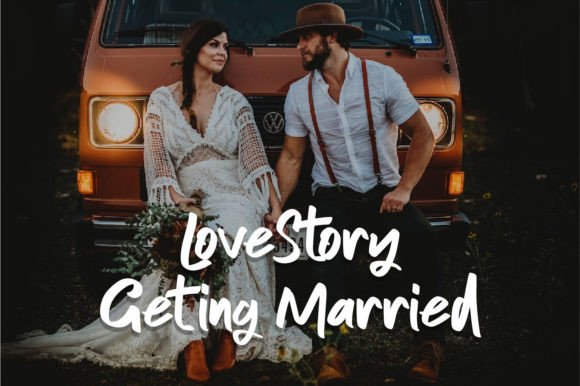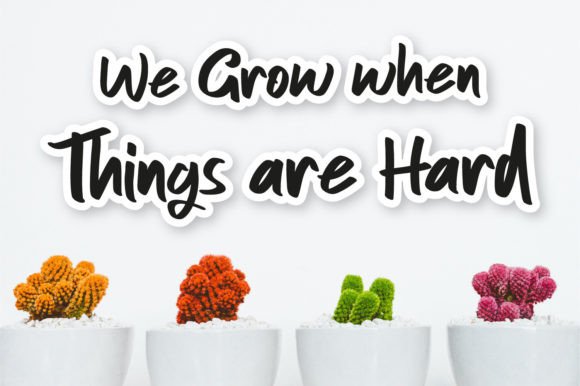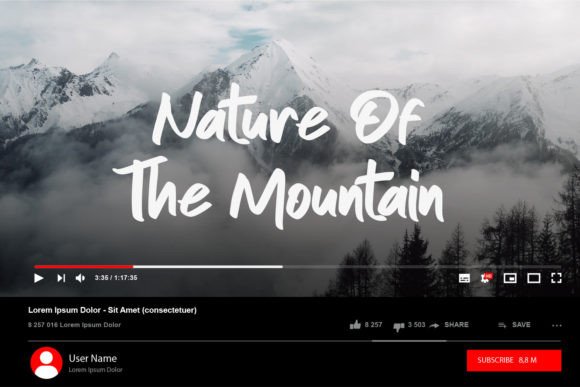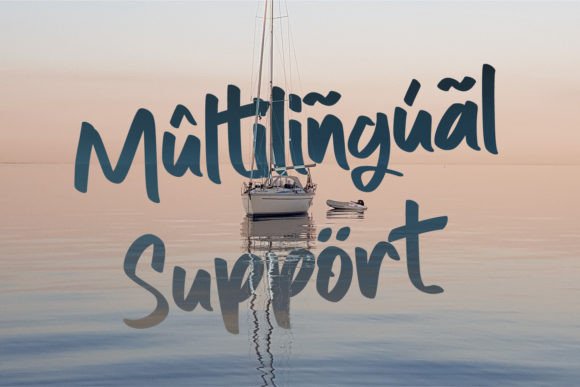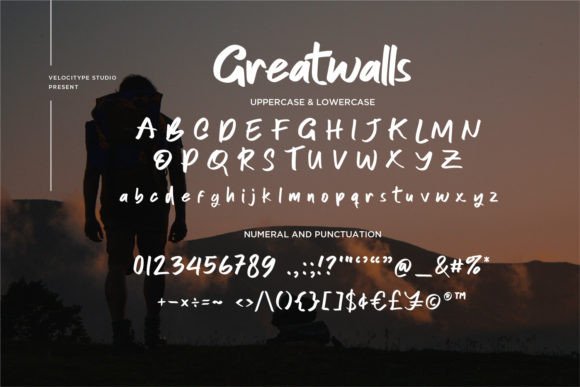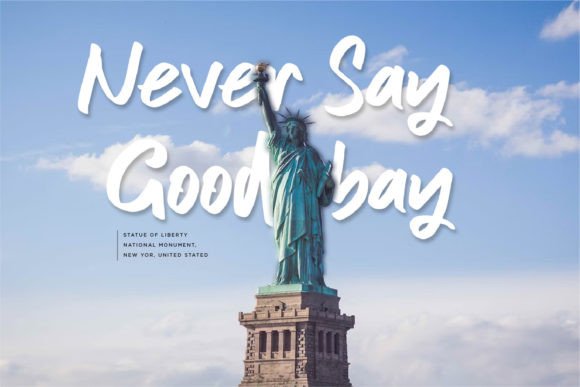
Introducing Greatwalls Font: The Ultimate Modern and Bold Handwritten Script
In the world of typography, a font can make or break a design. For designers and crafters looking to make a statement, Greatwalls Font is the perfect solution. This modern and bold handwritten script font exudes confidence and style, making it ideal for headlines, logos, and social media graphics.
The Power of Greatwalls Font
Greatwalls Font boasts strong and expressive brush strokes that command attention. Its smooth curves add a touch of elegance, making it a versatile font suitable for a wide range of design applications. Whether you’re looking to create a bold logo, a striking headline, or a captivating social media graphic, Greatwalls Font is the perfect choice.
Key Features of Greatwalls Font
- Modern and Bold: Greatwalls Font features a modern and bold design that’s perfect for making a statement.
- Handwritten Script: The font’s handwritten script style adds a touch of personality and elegance to any design.
- Strong and Expressive Brush Strokes: Greatwalls Font’s strong and expressive brush strokes make it perfect for headlines, logos, and social media graphics.
- Smooth Curves: The font’s smooth curves add a touch of sophistication and elegance to any design.
Greatwalls Font is perfect for designers and crafters looking to unleash their creativity. With its bold and captivating design, this font is sure to leave a lasting impression on your audience. Whether you’re working on a branding project, a social media campaign, or a personal crafting project, Greatwalls Font is the perfect choice.
Use Cases for Greatwalls Font
- Headlines: Use Greatwalls Font to create bold and eye-catching headlines that grab attention.
- Logos: Create a lasting impression with a bold and memorable logo designed with Greatwalls Font.
- Social Media Graphics: Use Greatwalls Font to create captivating social media graphics that stand out from the crowd.
- Branding: Establish a strong brand identity with Greatwalls Font’s bold and elegant design.
Why Choose Greatwalls Font?
With so many fonts available, why choose Greatwalls Font? Here are just a few reasons:
- Unique Design: Greatwalls Font features a unique and bold design that’s sure to stand out.
- Versatility: The font’s versatility makes it suitable for a wide range of design applications.
- Ease of Use: Greatwalls Font is easy to use and pairs well with a variety of other fonts.
In conclusion, Greatwalls Font is the perfect choice for designers and crafters looking to make a statement. With its modern and bold handwritten script design, strong and expressive brush strokes, and smooth curves, this font is sure to leave a lasting impression. Unleash your creativity with Greatwalls Font and take your designs to the next level.